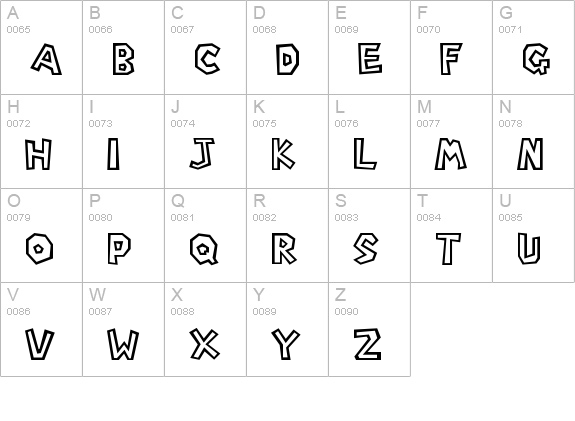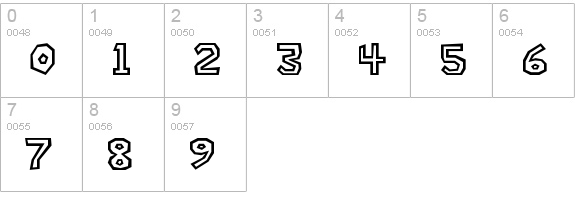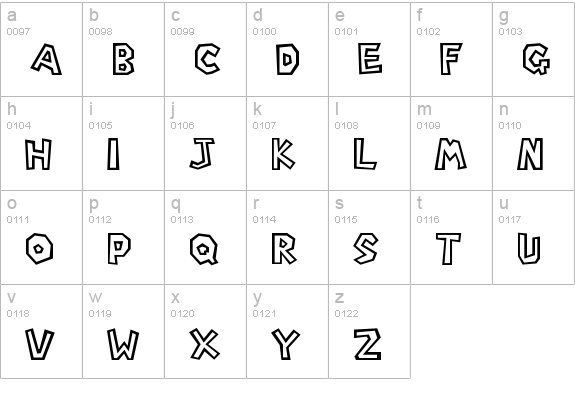
Introducing the iconic Super Mario Bros. font, a must-have for all fans of the beloved video game franchise. This unique font captures the whimsical and adventurous spirit of the Super Mario Bros. universe, instantly transporting you to the Mushroom Kingdom with its playful and nostalgic design. Featuring bold and energetic letterforms, the Super Mario Bros. font is perfect for adding a touch of fun and excitement to your projects. Whether you're creating a birthday invitation, designing a gaming website, or simply want to infuse your text with a touch of retro gaming charm, this font is sure to impress. And the best part? The Super Mario Bros. font is freely available to download at FontsMarket.com. Yes, you read that right - this incredible font can be yours without spending a single coin! Now you can unleash your creativity and bring a piece of the Super Mario Bros. magic into your designs, all at no cost. So why wait? Embrace the nostalgia, embrace the adventure, and download the Super Mario Bros. font today. Let your imagination run wild as you transform your projects into a pixelated wonderland that pays homage to one of the most iconic video game franchises of all time. Get ready to embark on a typographic journey like no other, with the Super Mario Bros. font leading the way.